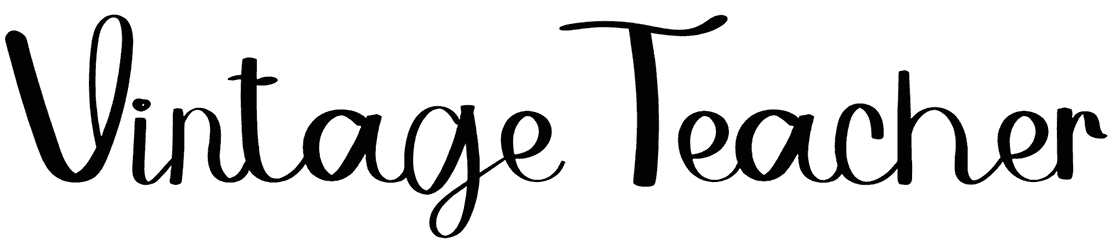
Vintage Teacher Font
On the surface, it might just be a lively script font with curly lettering. Get a look at it to see the playful spirit of the font start revealing itself. No matter whether it’s a logotype or the title of a promotion, in both cases, you can’t see anything more fitting than this exquisite Vintage Teacher font.
Be quick on your feet to put your hands on this 1940s font, for creating a powerful pictorial impact through the broadened and streamlined characters.